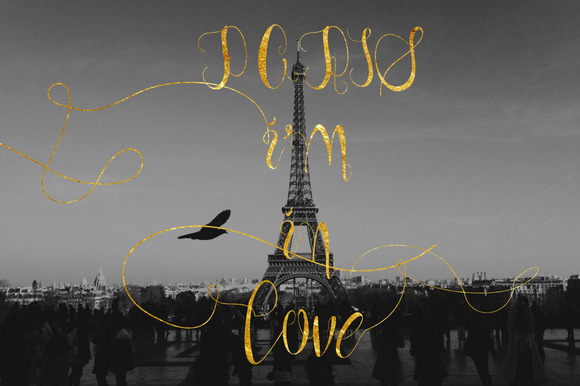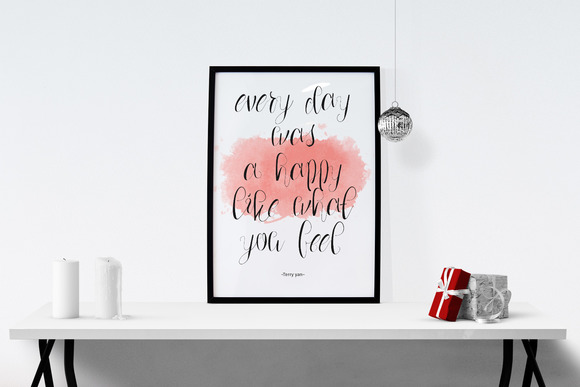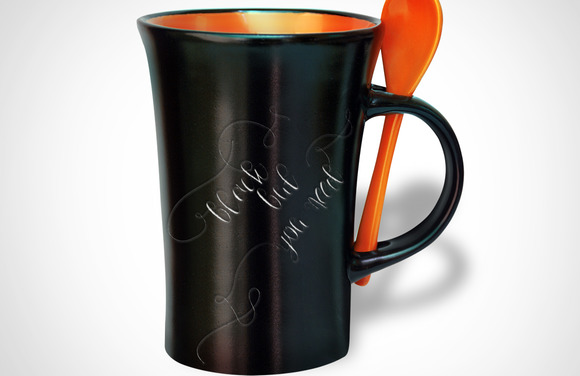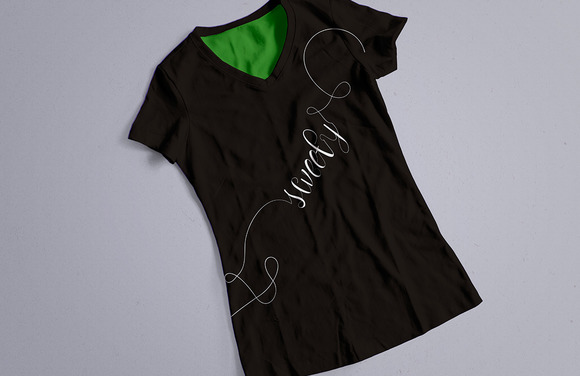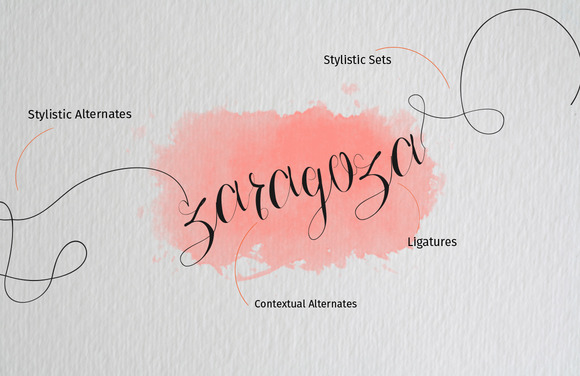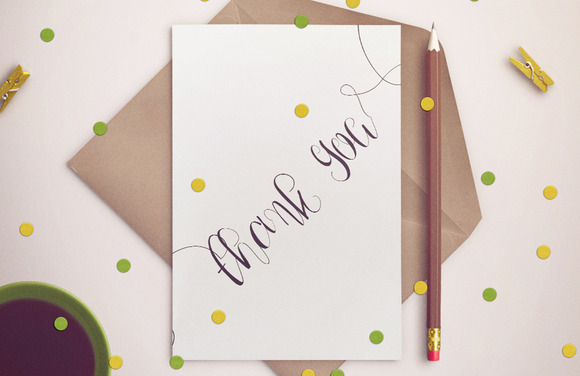
Last Light Font
About Last Light Font
Last light is a fabulous calligraphy typefaces which has a stylish feeling. It is made and cooked carefully to got a sleek combination between cores glyph’s and swashes.